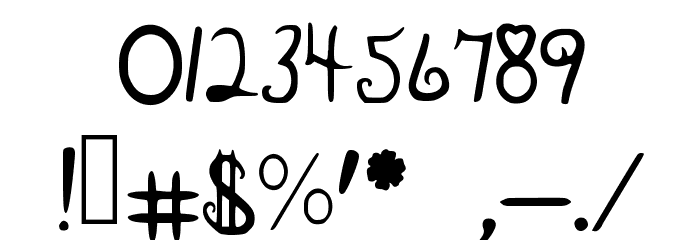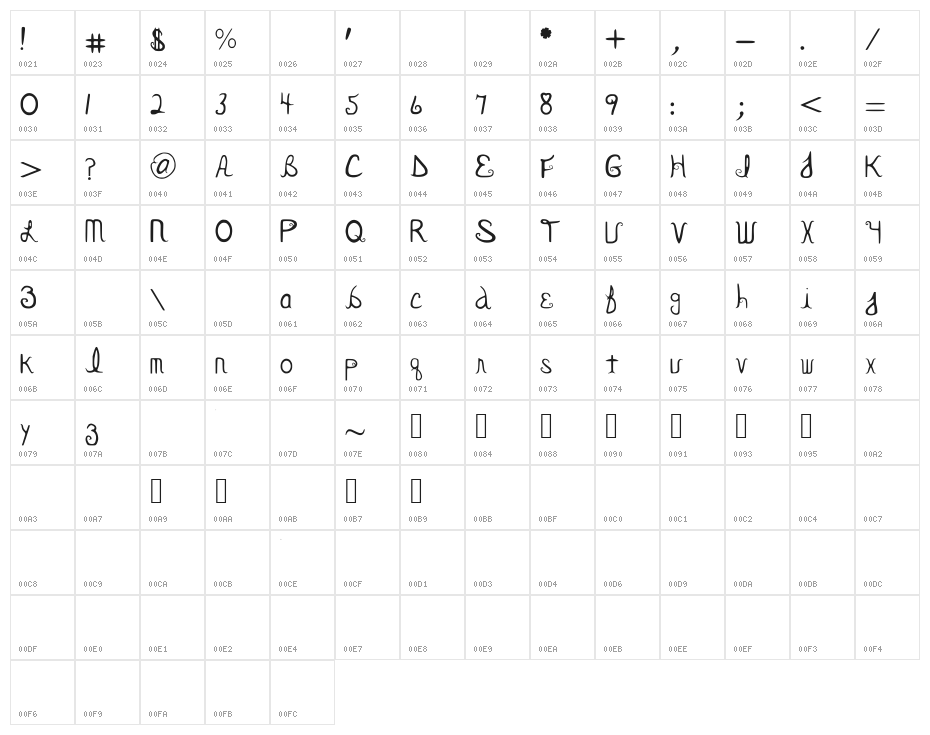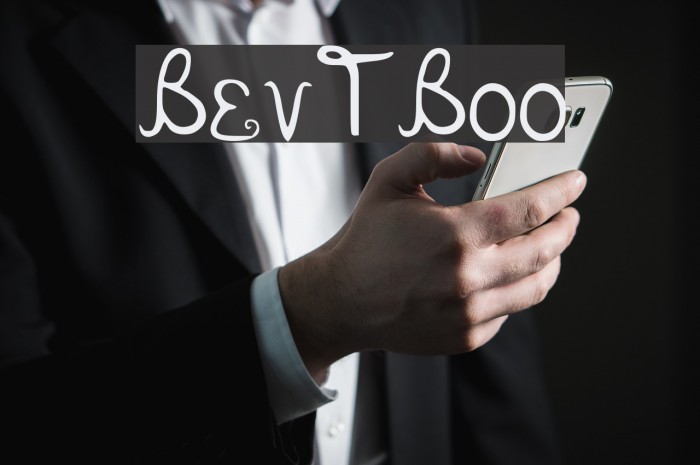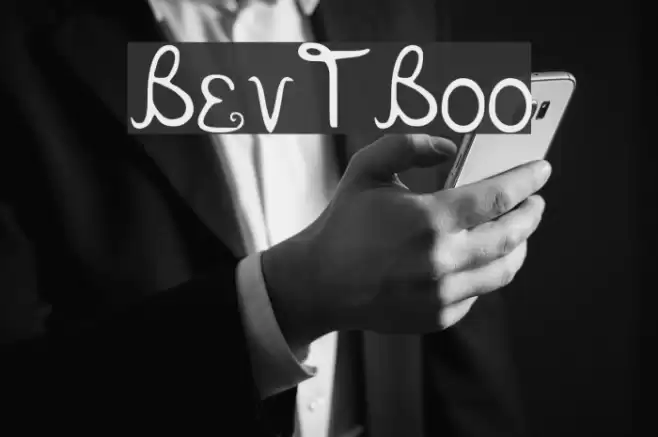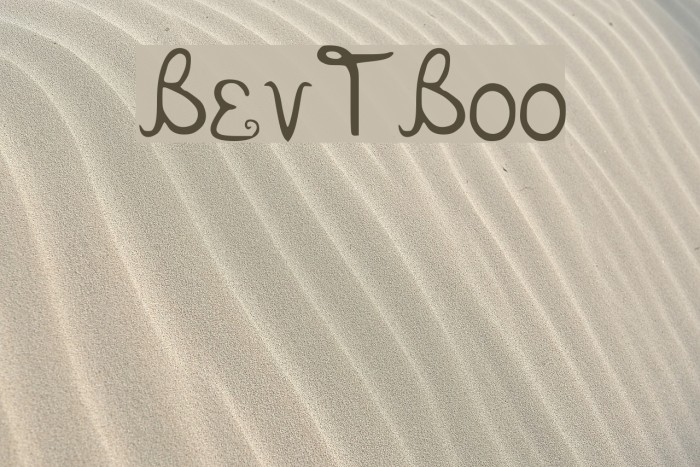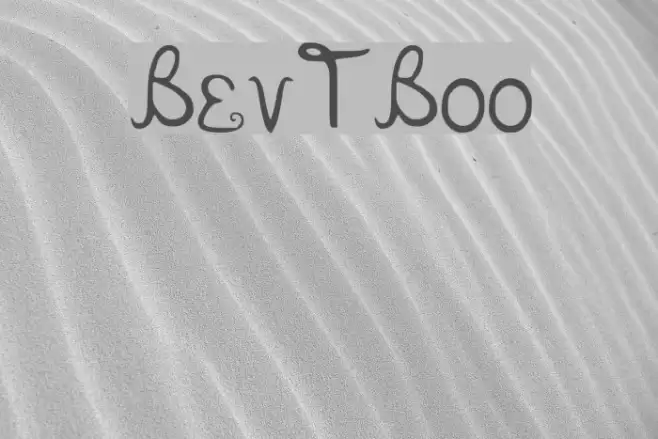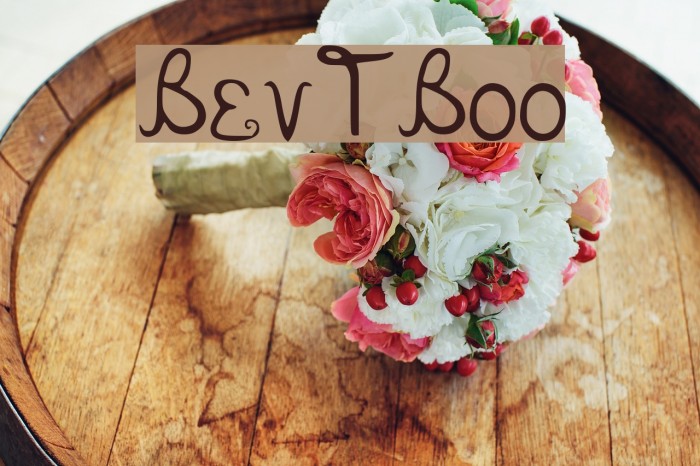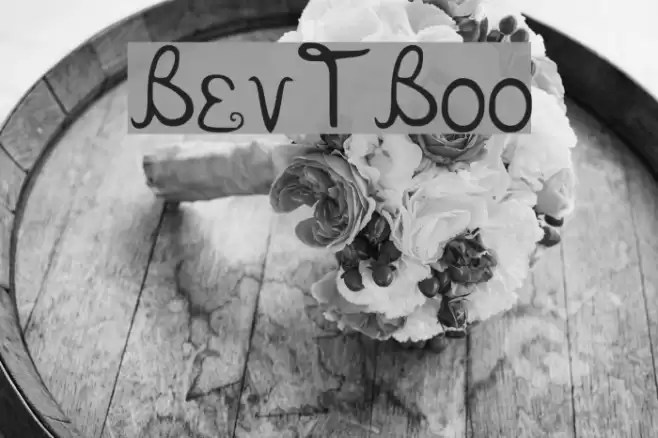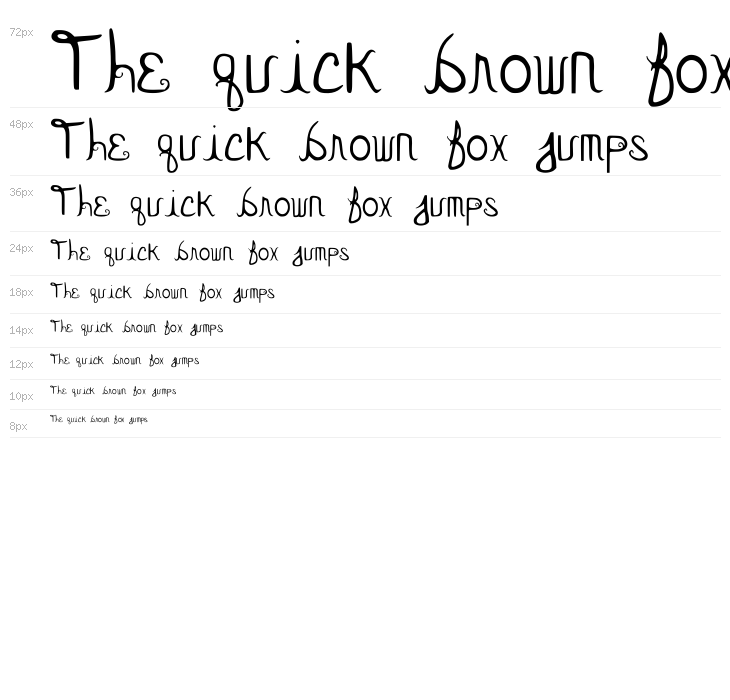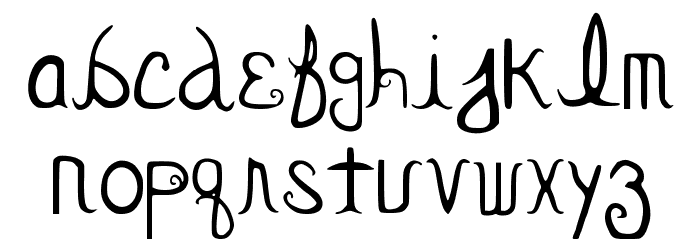
BevTBoo Font
BevTBoo Description
This font features a playful and whimsical design, characterized by its unique and quirky letterforms. Each character exhibits a distinct personality, with varying stroke thickness and decorative elements that add a touch of creativity. The uppercase letters are bold and expressive, while the lowercase letters maintain a consistent style with slight variations in height and width. Numbers and special characters follow the same playful theme, making this font suitable for projects that require a fun and engaging aesthetic. The overall style is reminiscent of hand-drawn or doodle-like typography, perfect for adding a personal touch to any design.